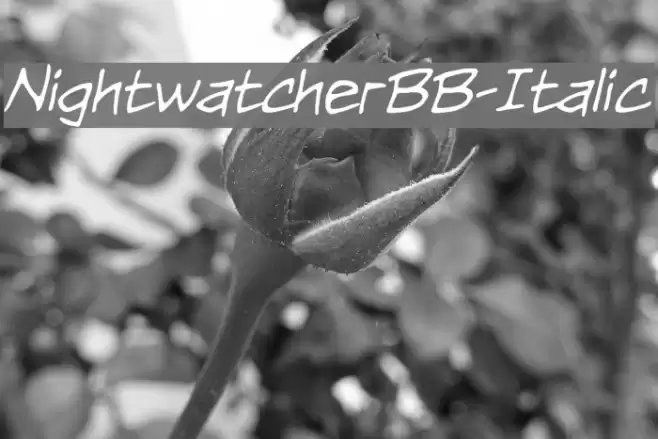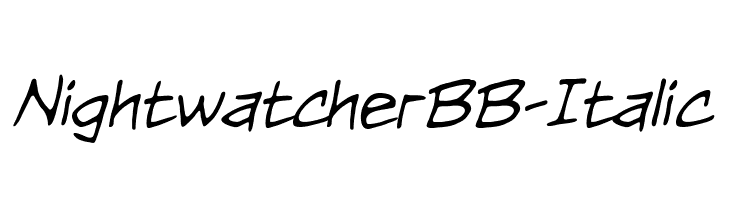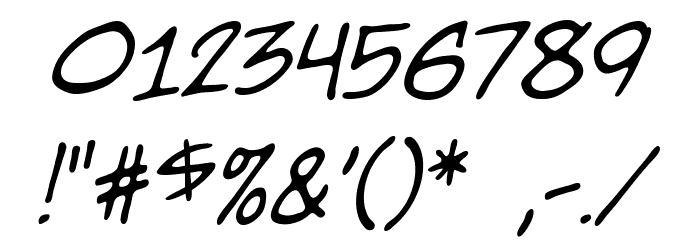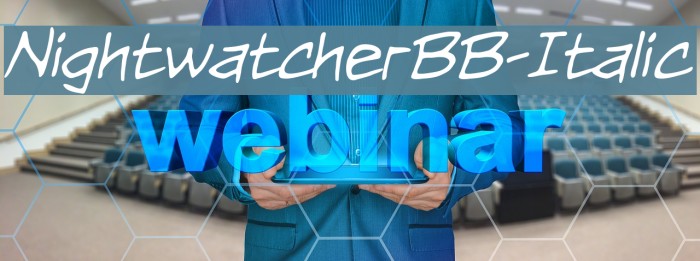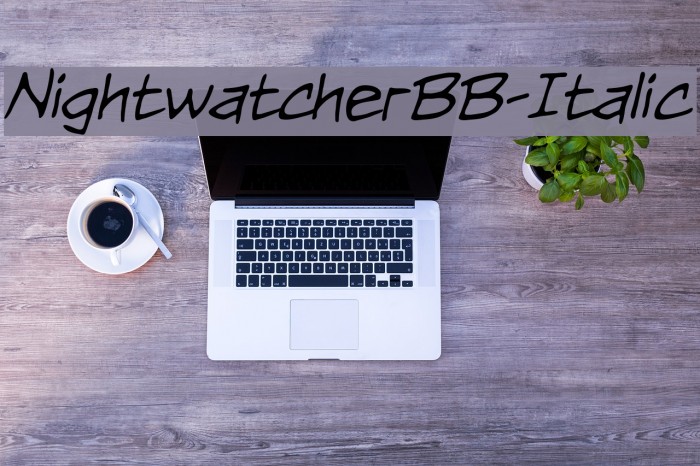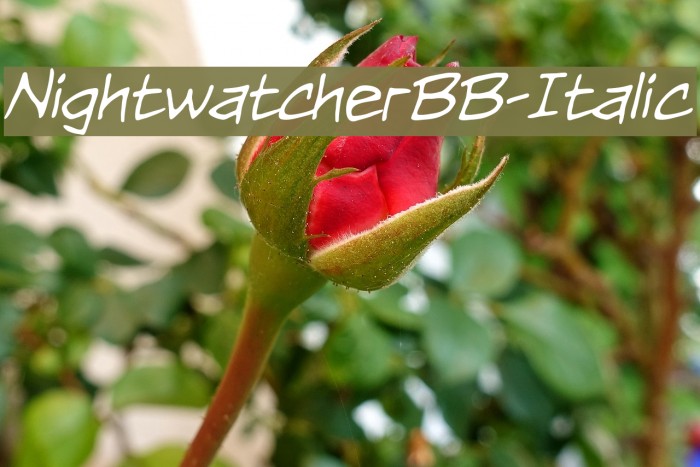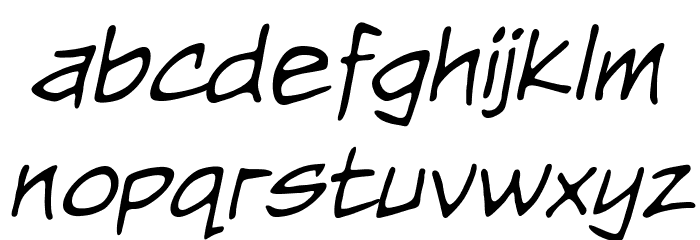
NightwatcherBB-Italic Font
NightwatcherBB-Italic Description
This font exhibits a dynamic and energetic style with a handwritten appearance. The letters are slanted, giving it an italicized look that adds a sense of motion and fluidity. The strokes are smooth and slightly irregular, mimicking the natural flow of handwriting. The uppercase and lowercase letters maintain a consistent style, with a slight variation in size and form that enhances its casual and approachable feel. The numerals are clear and legible, matching the overall aesthetic. Special characters are well-integrated, ensuring versatility in various text compositions.
A dynamic, italicized handwritten font with smooth, fluid strokes from Uncategorized fonts.
- Proposed Projects: Ideal for personal branding, creative projects, invitations, and informal communications.
- Overall Style: Casual
- Use Case: Logos, Invitations, Personal Branding